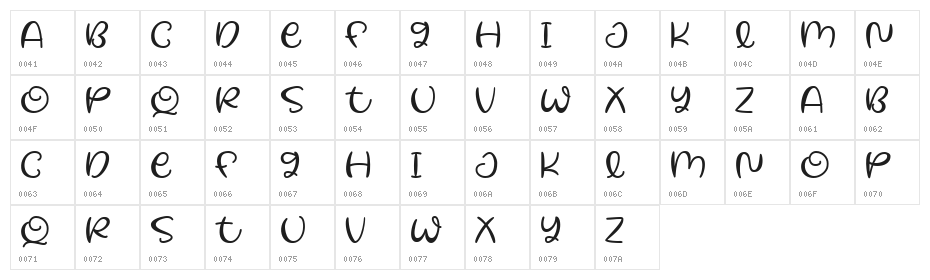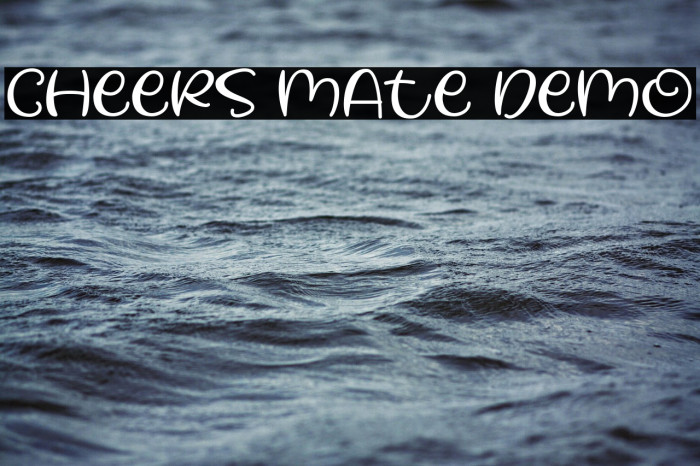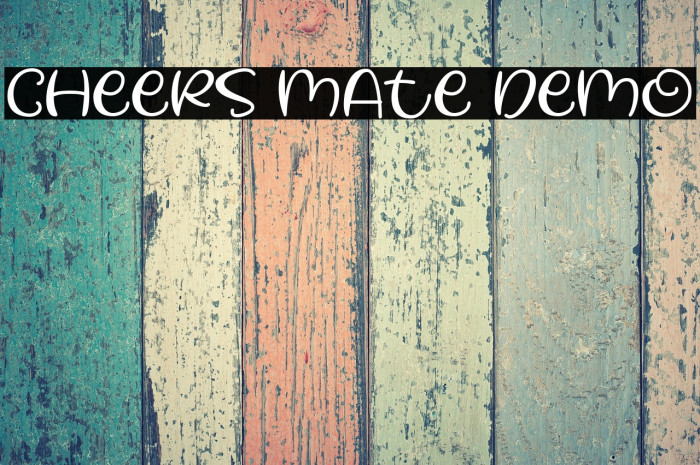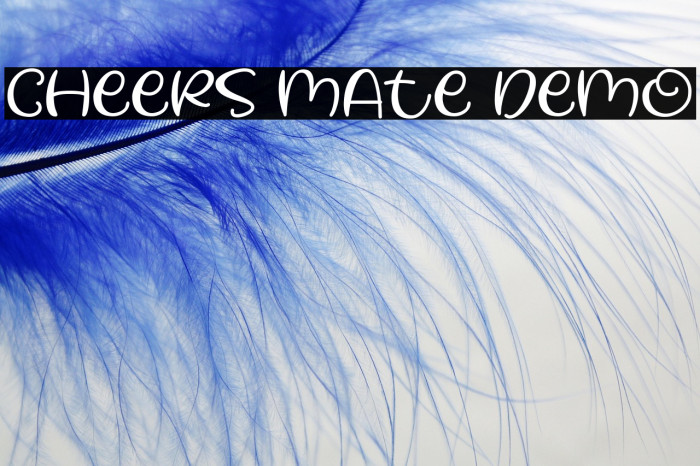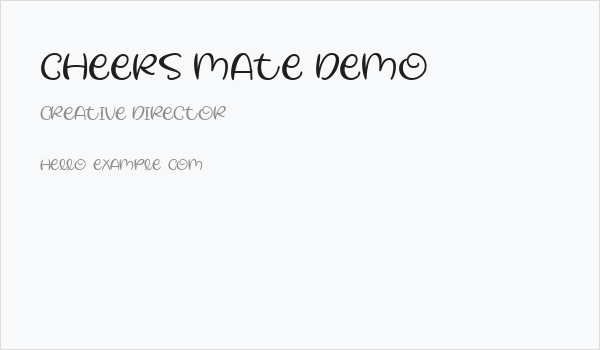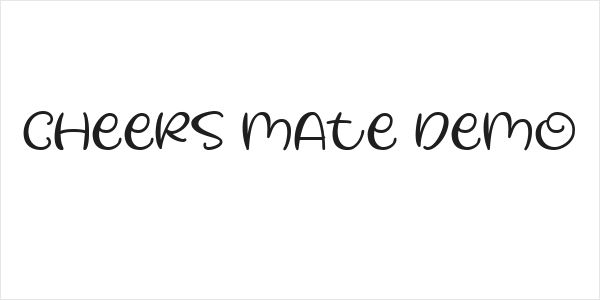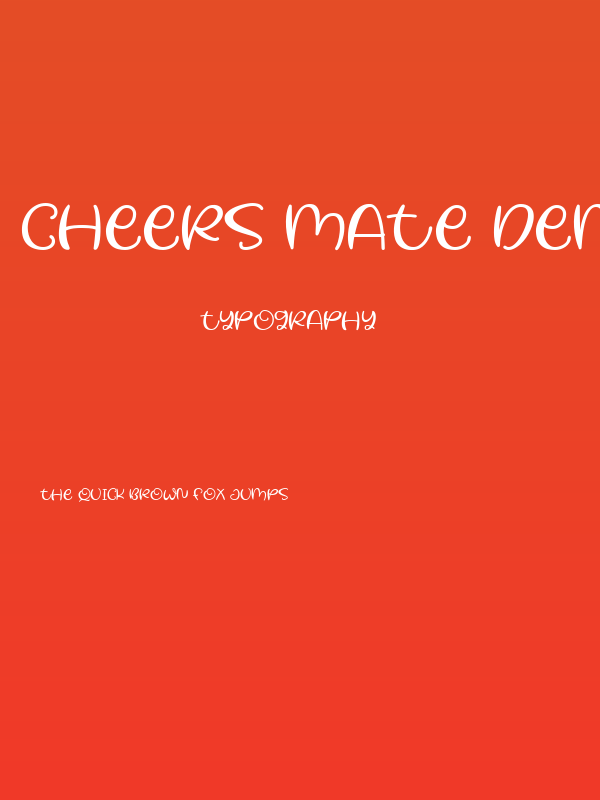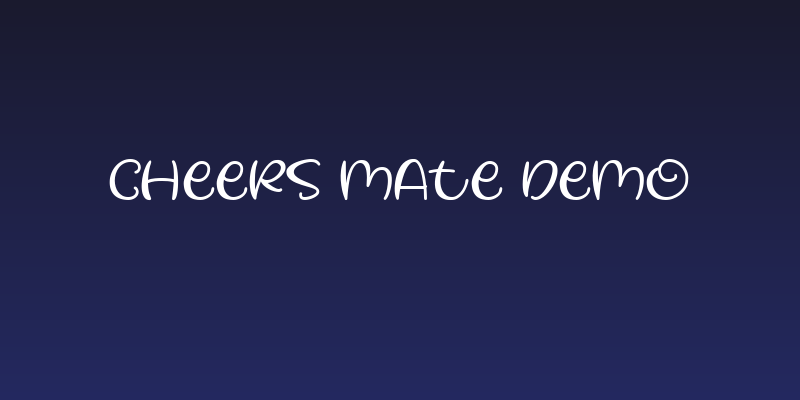
Cheers Mate Demo Font
Cheers Mate Demo Description
This font features a playful and whimsical style, characterized by its flowing, cursive-like strokes and unique character shapes. The letters exhibit a sense of movement and energy, with some characters having exaggerated loops and curves. The overall appearance is informal and friendly, making it suitable for creative and casual applications. The font maintains a consistent stroke width, providing a balanced and harmonious look across all characters. Its distinctive style is eye-catching and adds a touch of personality to any design.
| Proposed Projects | Ideal for greeting cards, invitations, children's books, and playful branding projects. |